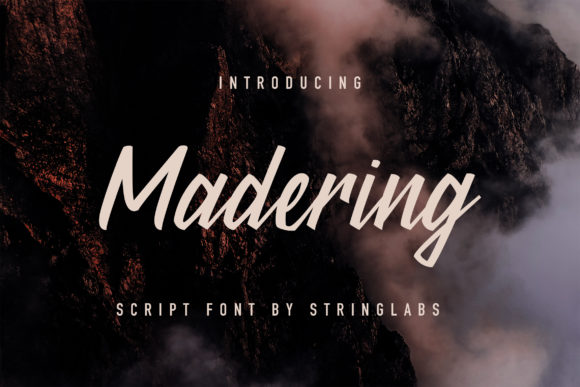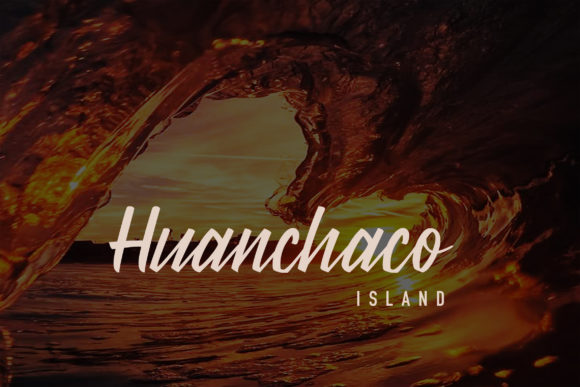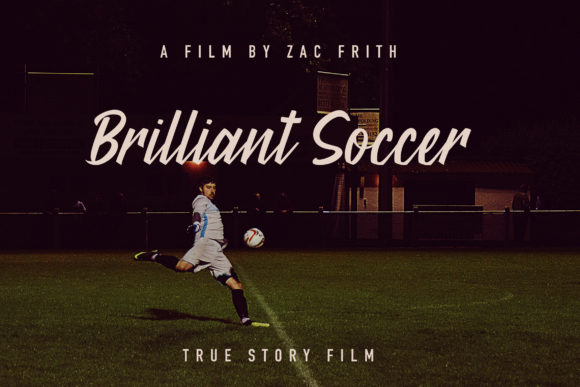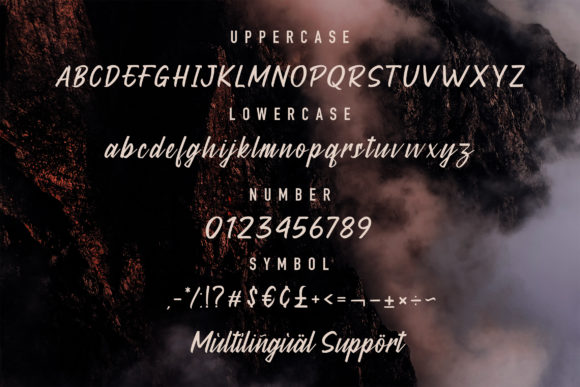
HomeScript FontsMadering Font Script Fonts Madering Font FacebookXPinterestWhatsApp Madering Font Poster 2 Madering Font Poster 3 Madering Font Poster 4 About Madering Font Madering is an elegant and classic font. It’s perfect for logos, packaging, branding, invitations and much more! DOWNLOAD NOW People also explored Procreate Font Oifa Font The Sewing Font Paladin Font Berlini Font Handy Font Pharllos Font Blierid Font Mensura Slab Family Font 274 0 TagsMadering Font Previous articleBlauer FontNext articleOaklash Font LEAVE A REPLY Cancel reply Comment: Please enter your comment! Name:* Please enter your name here Email:* You have entered an incorrect email address! Please enter your email address here Website: Save my name, email, and website in this browser for the next time I comment. Personal Use Free Evelyne Personal Use Free Read more about this font Aline Personal Use Free Read more about this font Crack Man Personal Use Free Read more about this font Americana Personal Use Free Read more about this font BLOG Best Fonts for YouTube Videos: Make Your Thumbnails Stand Out Best Fonts for YouTube Videos: Make Your Thumbnails Stand Out Choosing the right font can make a massive difference in how your YouTube videos perform.... Top 10 Handwritten Fonts That Elevate Your Designs Best Fonts for T-Shirt Design – Top 2025 Picks Free vs Paid Fonts: Why Investing in Premium Fonts Is Worth It